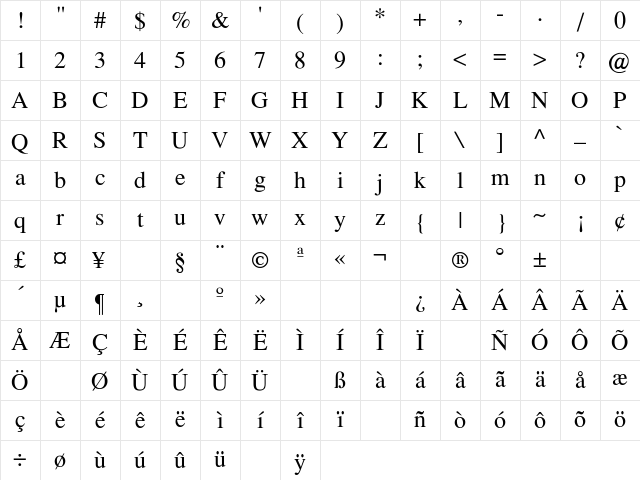
Tempus Regular
Tempus Family
Complete Tempus Regular glyph index. Displaying only characters natively supported by Tempus Regular font.
Design Context for Tempus
Tempus is a composed and adaptable typeface that performs quietly and consistently across a wide range of design contexts.